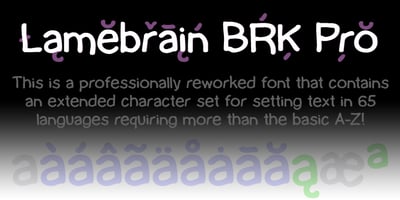
Lamebrain BRK Pro
Lamebrain BRK Pro font
Lamebrain BRK Pro Font Family was designed by Roger S. Nelsson, Brian Kent and published by CheapProFonts. Lamebrain BRK Pro contains 1 styles and family package options. The first handwritten font from CheapProFonts – and what a beauty it is! The original font had no diacritics at all, so all have been designed to fit. This friendly looking font is ready to scribble some notes or something. ALL fonts from CheapProFonts have very extensive language support: They contain some unusual diacritic letters (some of which are contained in the Latin Extended-B Unicode block) supporting: Cornish, Filipino (Tagalog), Guarani, Luxembourgian, Malagasy, Romanian, Ulithian and Welsh. They also contain all glyphs in the Latin Extended-A Unicode block (which among others cover the Central European and Baltic areas) supporting: Afrikaans, Belarusian (Lacinka), Bosnian, Catalan, Chichewa, Croatian, Czech, Dutch, Esperanto, Greenlandic, Hungarian, Kashubian, Kurdish (Kurmanji), Latvian, Lithuanian, Maltese, Maori, Polish, Saami (Inari), Saami (North), Serbian (latin), Slovak(ian), Slovene, Sorbian (Lower), Sorbian (Upper), Turkish and Turkmen. And they of course contain all the usual “western” glyphs supporting: Albanian, Basque, Breton, Chamorro, Danish, Estonian, Faroese, Finnish, French, Frisian, Galican, German, Icelandic, Indonesian, Irish (Gaelic), Italian, Northern Sotho, Norwegian, Occitan, Portuguese, Rhaeto-Romance, Sami (Lule), Sami (South), Scots (Gaelic), Spanish, Swedish, Tswana, Walloon and Yapese.